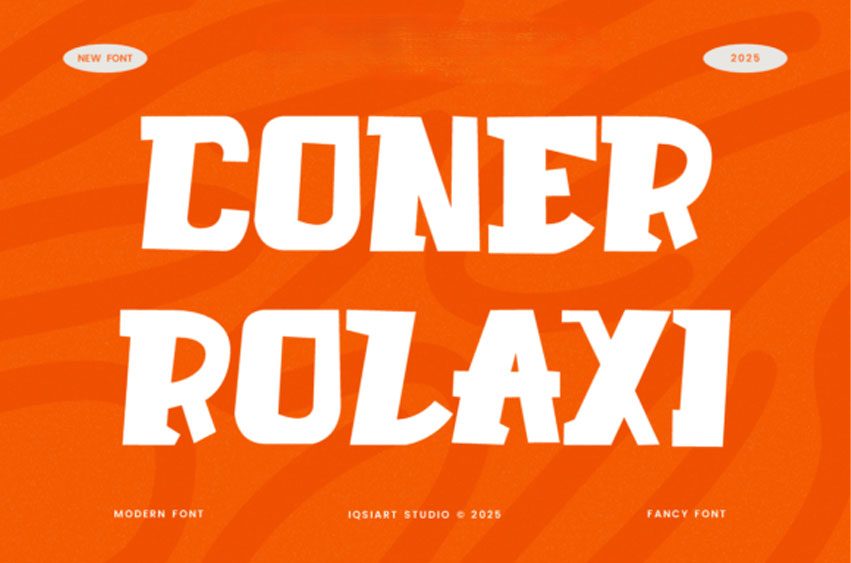
Coner Rolaxi Font
Coner Rolaxi Font is a bold and modern display font with quirky angles and chunky confidence.
Ideal for posters, sports branding, urban apparel, and high-impact headlines, it brings energy and personality to every project.